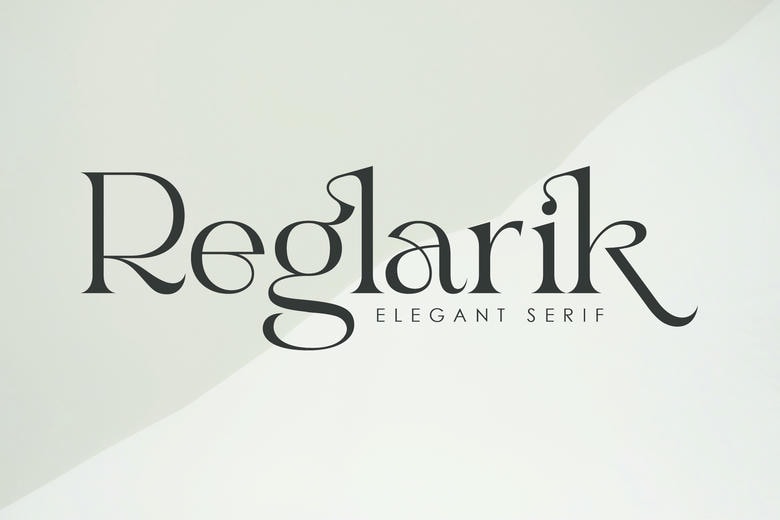
Regularik Font
Reglarik is a stylish and modern serif font. Its characters with their unique shapes and their own charm will assist you in making beautiful, elegant compositions. Each detail is well designed to provide a clear, consistent and attractive output to a broad spectrum of design requirements.
This font enables more creative exploration. The final product is dynamic, unique, and professional, which is flexible to different design styles.
Regularik Serif Font